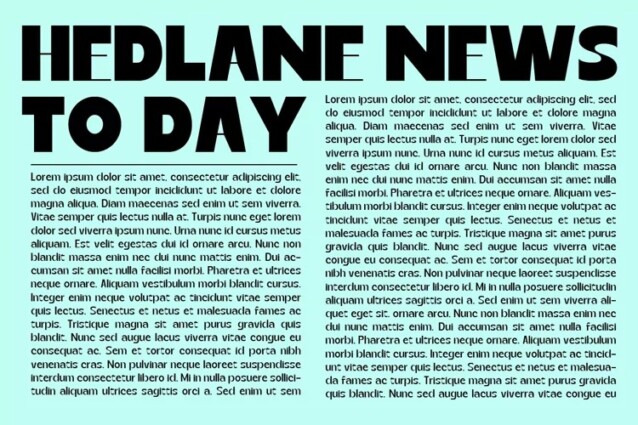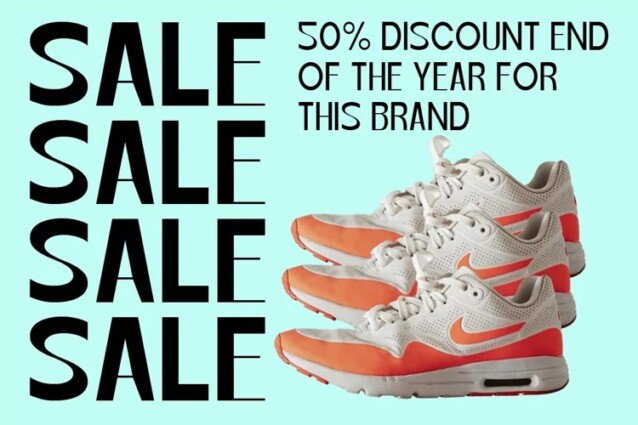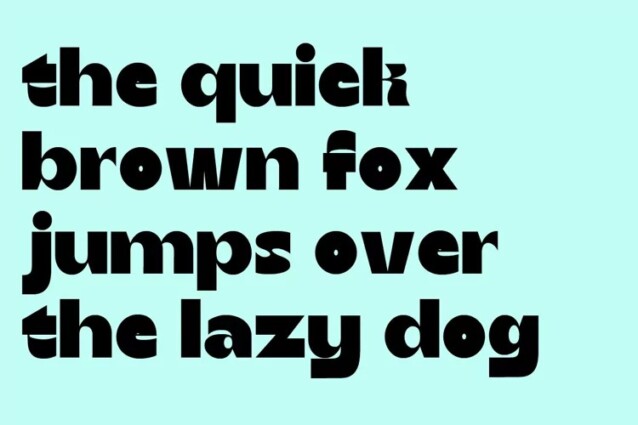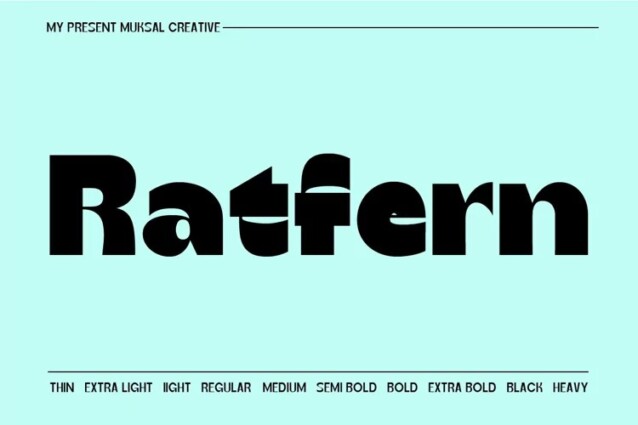
Ratfern Font – A bold, clean choice for business, logos, and magazines. Simply Conception has 10 families Regular font, starting from the small thin to the largest Heavy. This typeface is versatile and can be used successfully in magazines, posters, branding, websites.